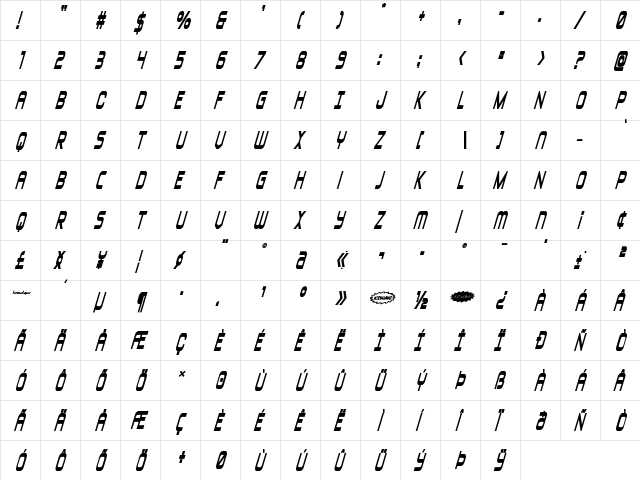
Blizzard Shaft Bold Italic Regular
Design Context for Blizzard Shaft Bold Italic Typeface
Blizzard Shaft Bold Italic offers clean, dependable letterforms without strong stylistic allegiance, making it a practical choice for designers who need flexibility. The slanted form adds forward momentum and visual energy. Its bold stroke weight gives it real presence on the page.
Pro Tip: Use Blizzard Shaft Bold Italic for emphasis, pull quotes, and subheadings where its slanted energy can add rhythm to the layout.